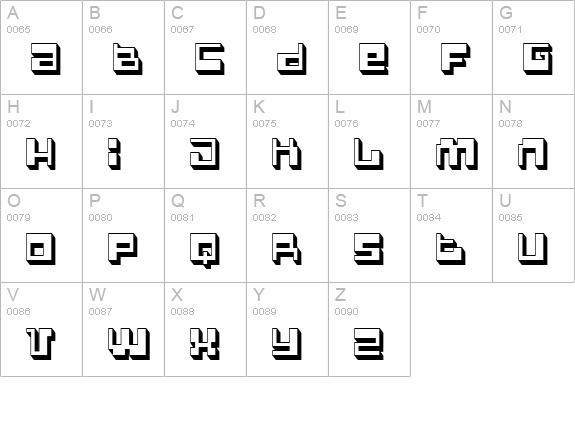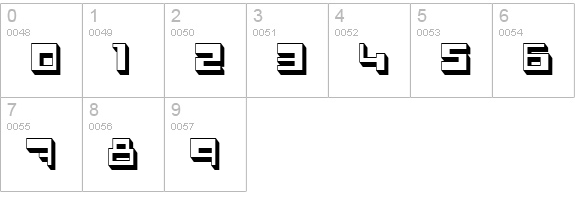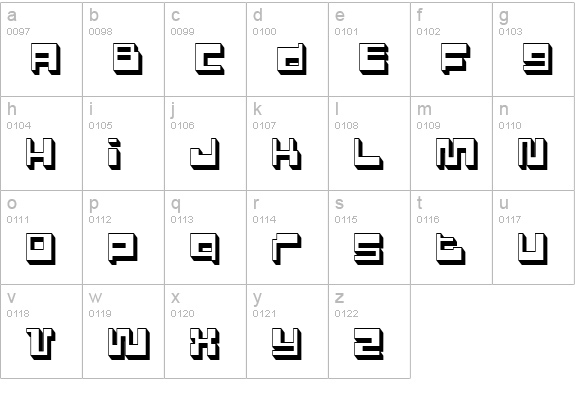
Polygon Power Font Details
Introducing Polygon Power, a captivating and dynamic font that exudes modernity and creativity. This unique typeface is inspired by geometric shapes and features sharp edges and bold lines, making it perfect for making a statement in your designs. The sleek and futuristic look of Polygon Power is sure to grab attention and add a touch of sophistication to any project. What's even better is that Polygon Power is completely free to download at FontsMarket.com. This means you can easily access this eye-catching font and use it in your personal or commercial projects without any cost. Whether you're designing posters, logos, or social media graphics, Polygon Power will elevate your work with its edgy and contemporary aesthetic. Don't miss out on the opportunity to enhance your designs with the striking appeal of Polygon Power. Download this one-of-a-kind font today and unleash your creativity like never before!